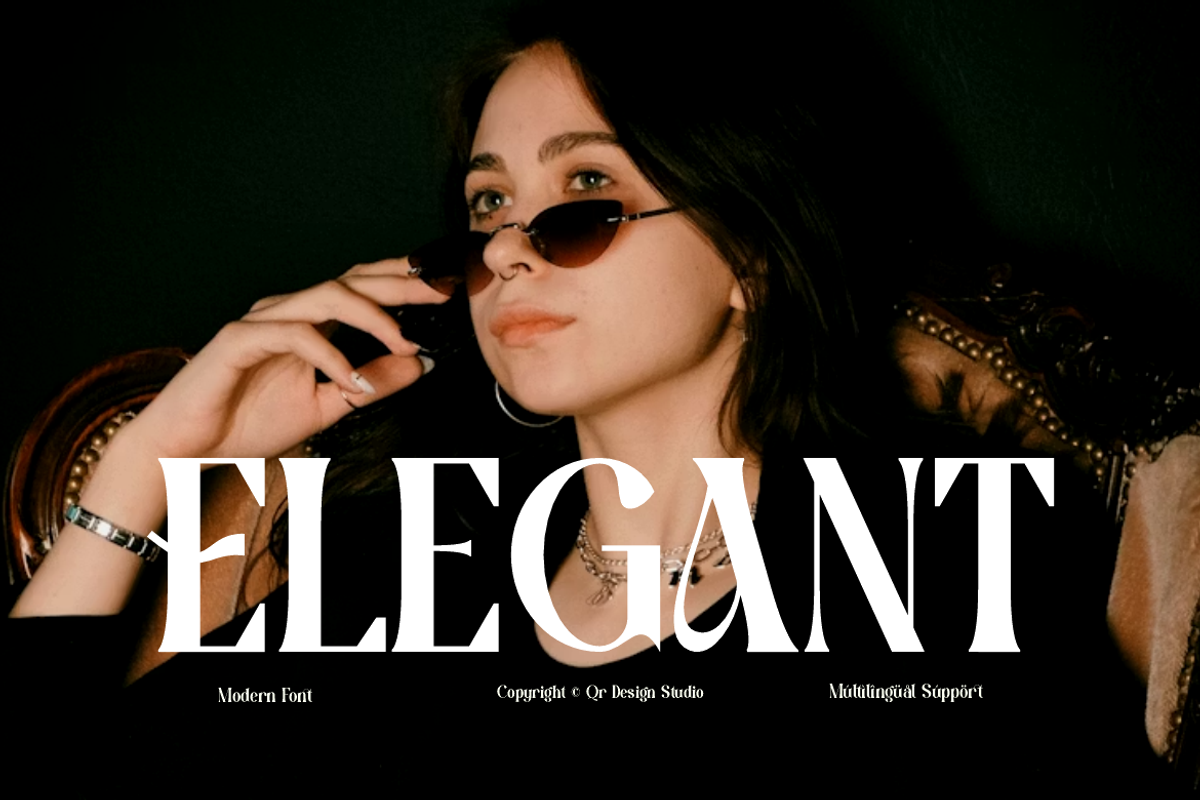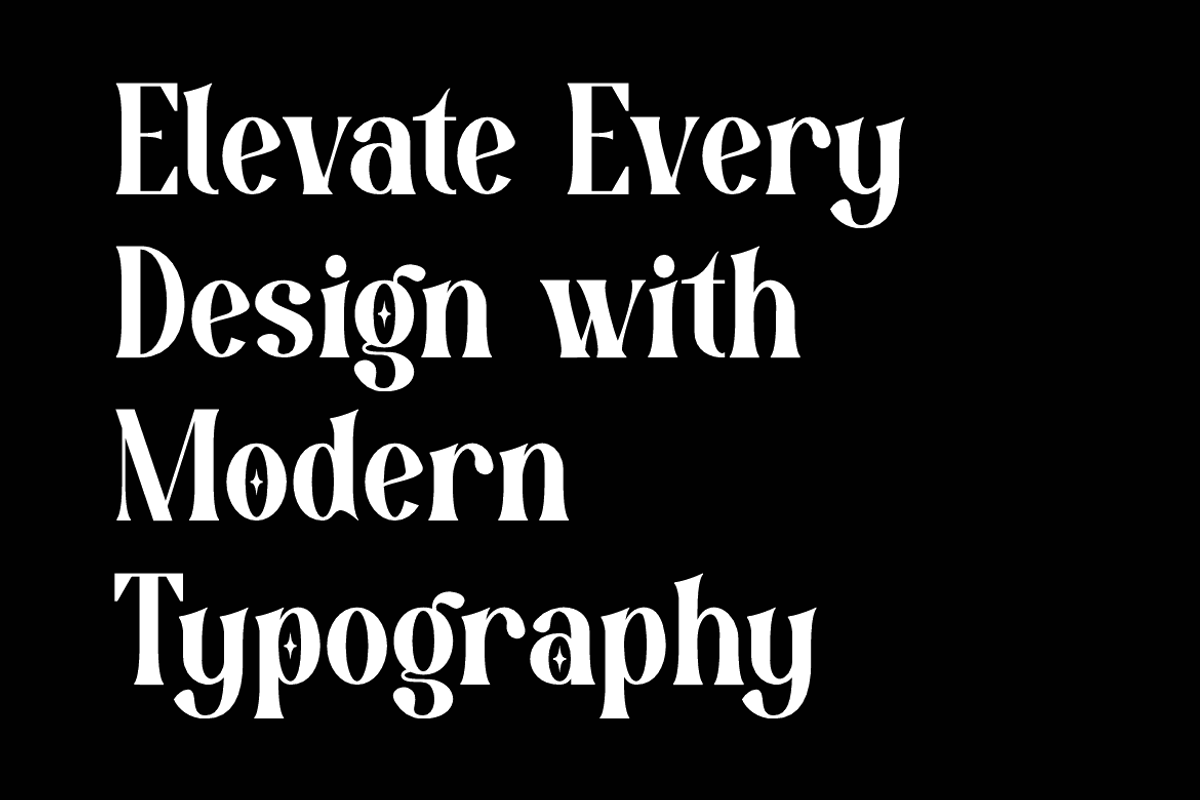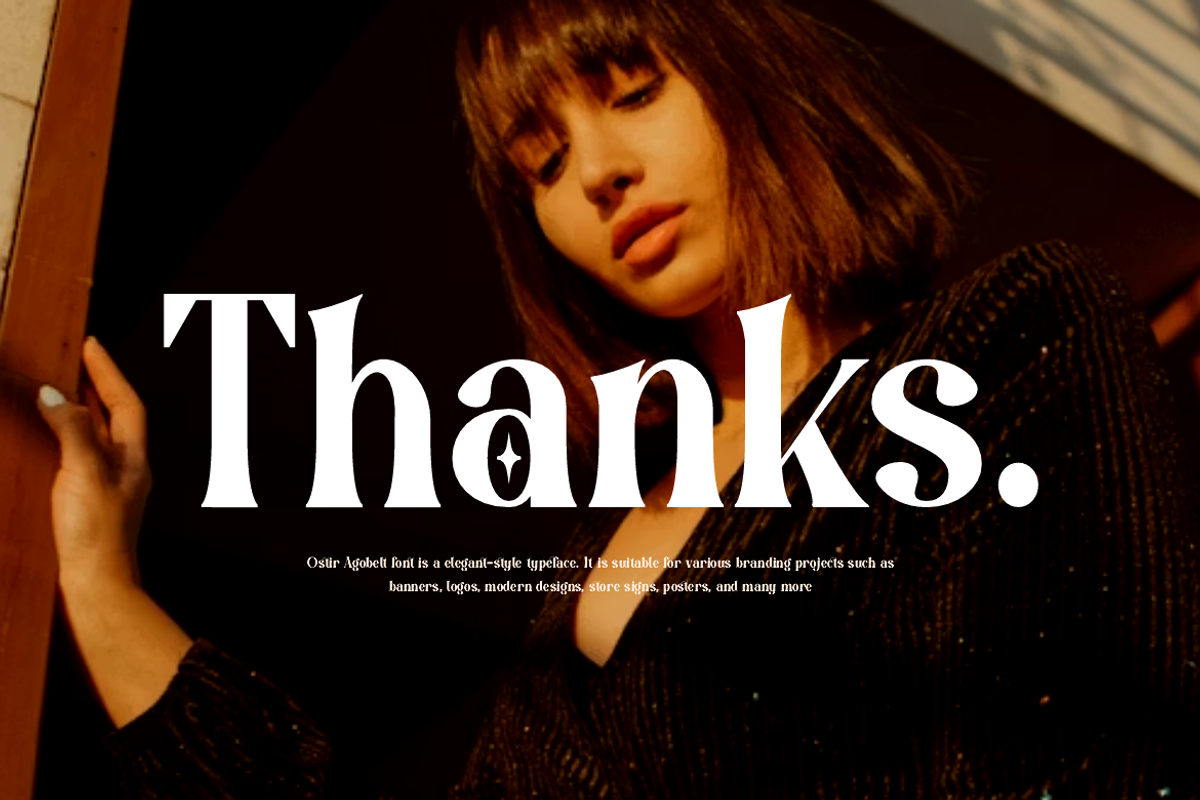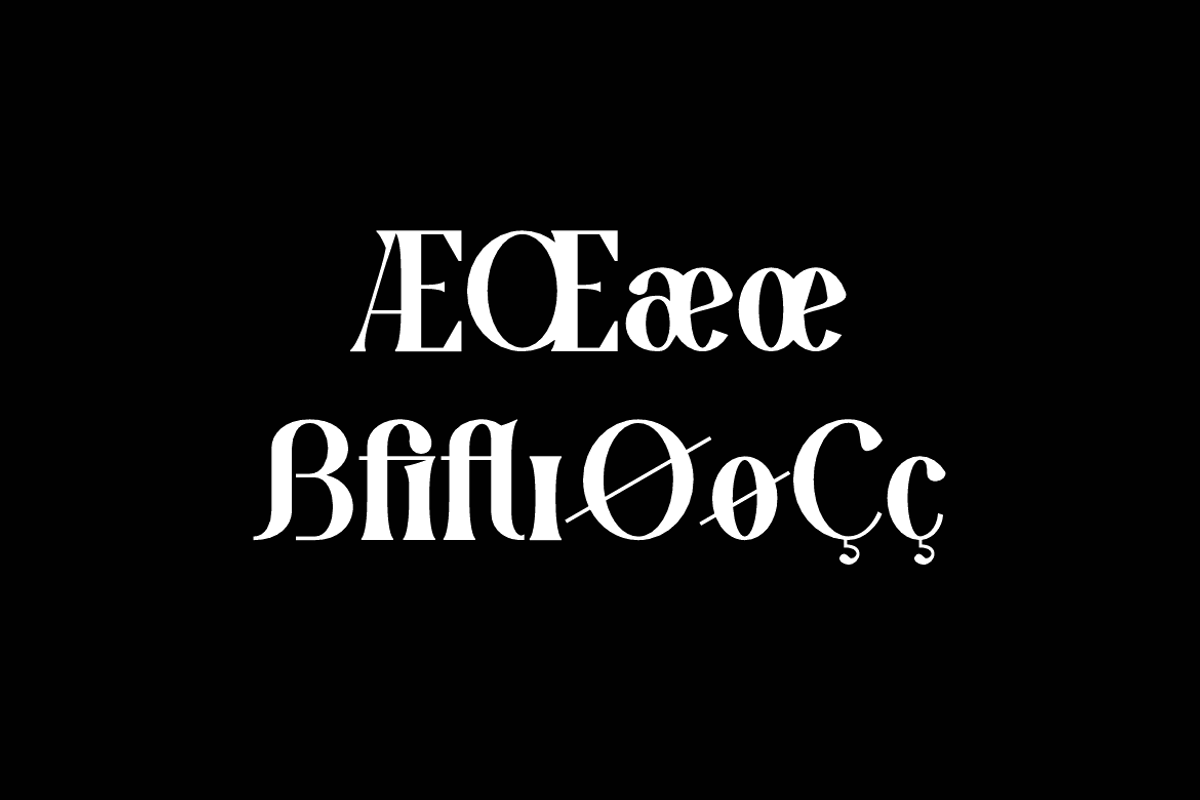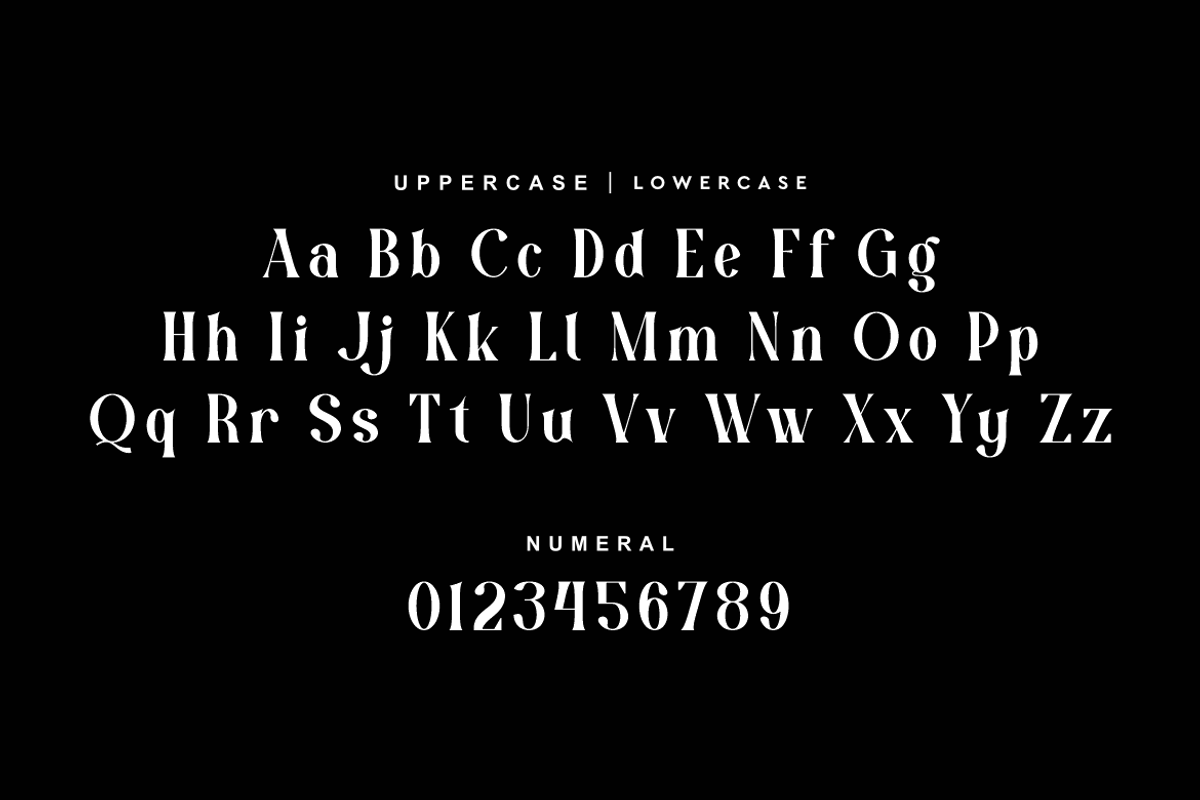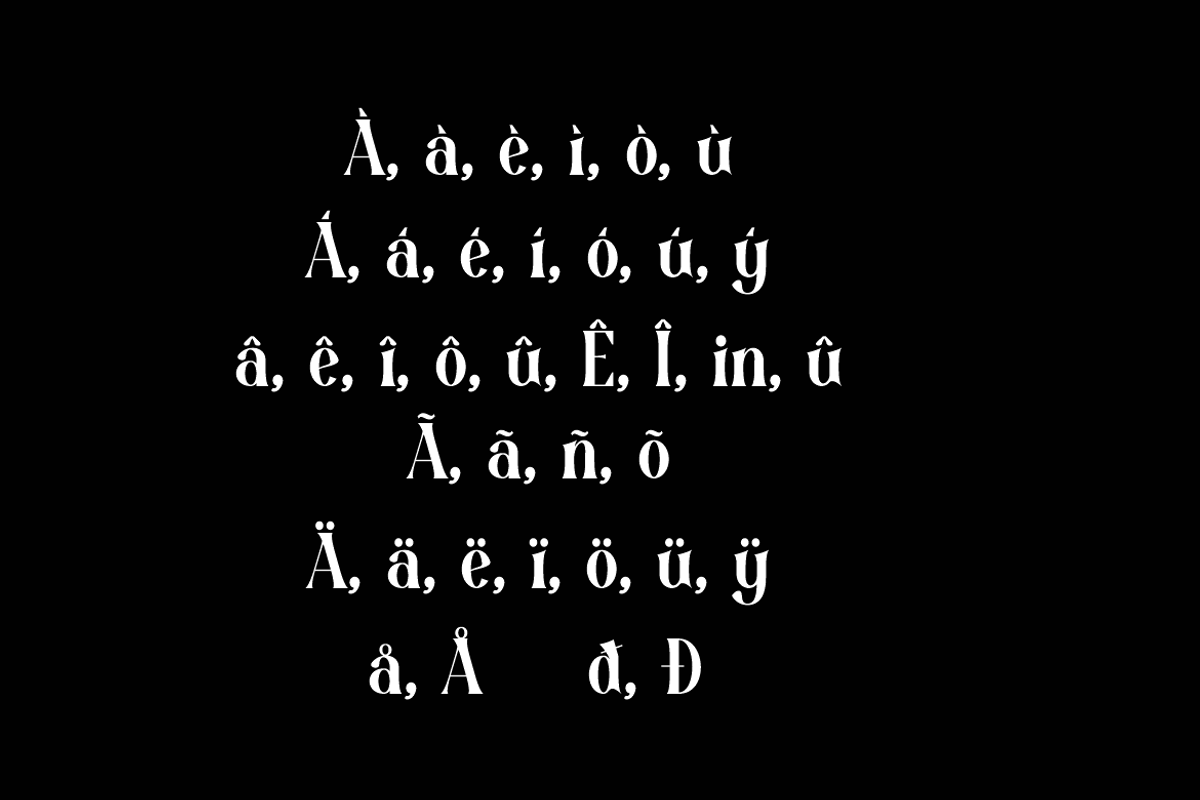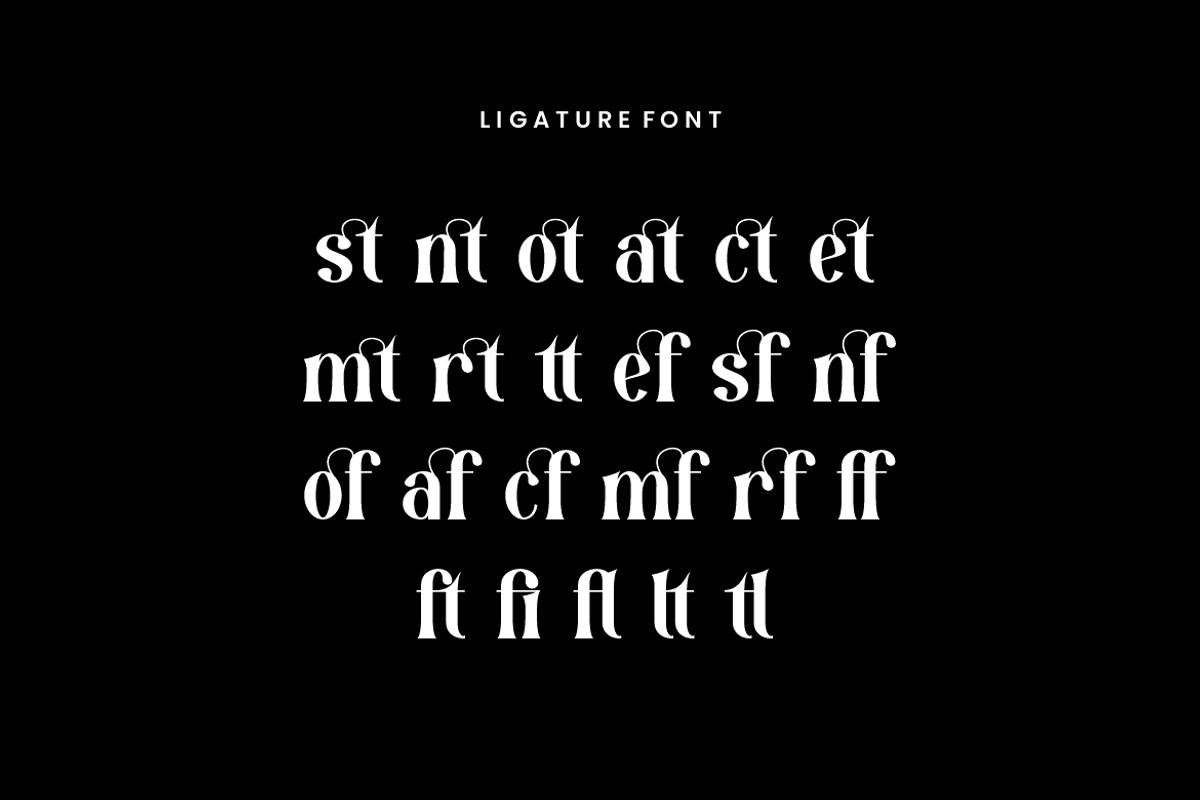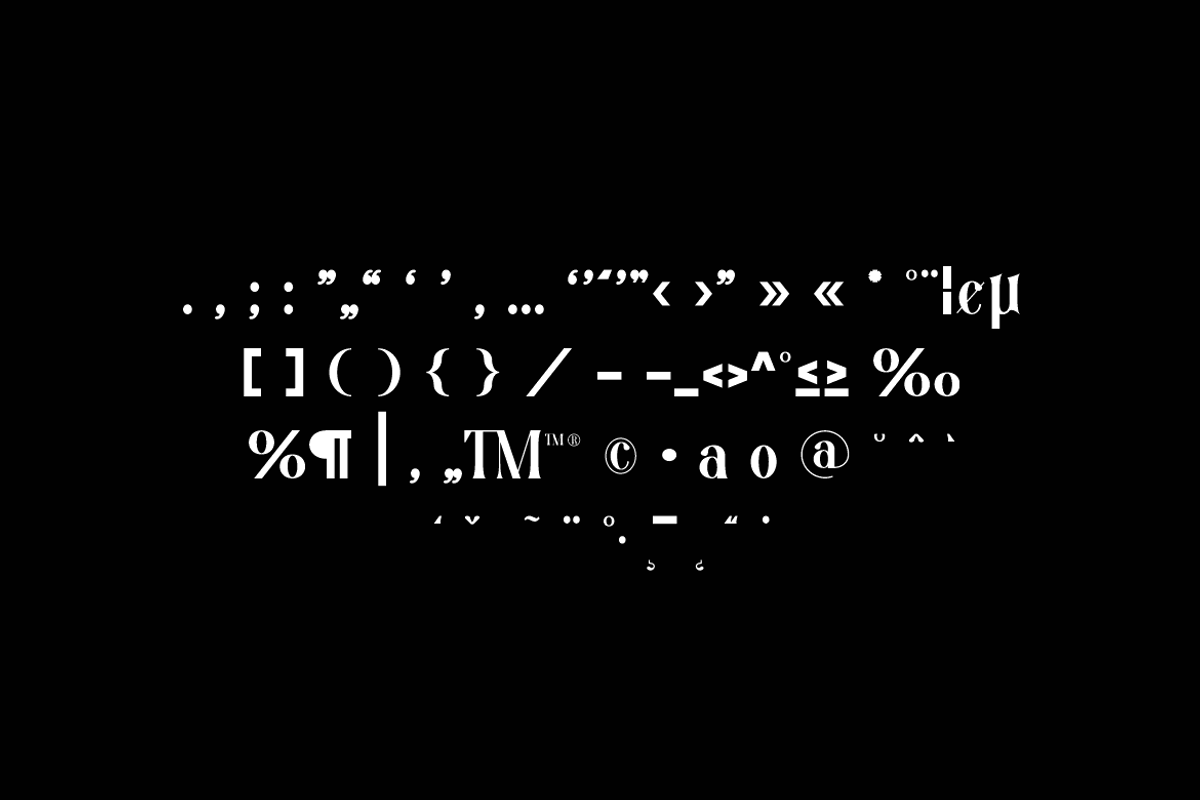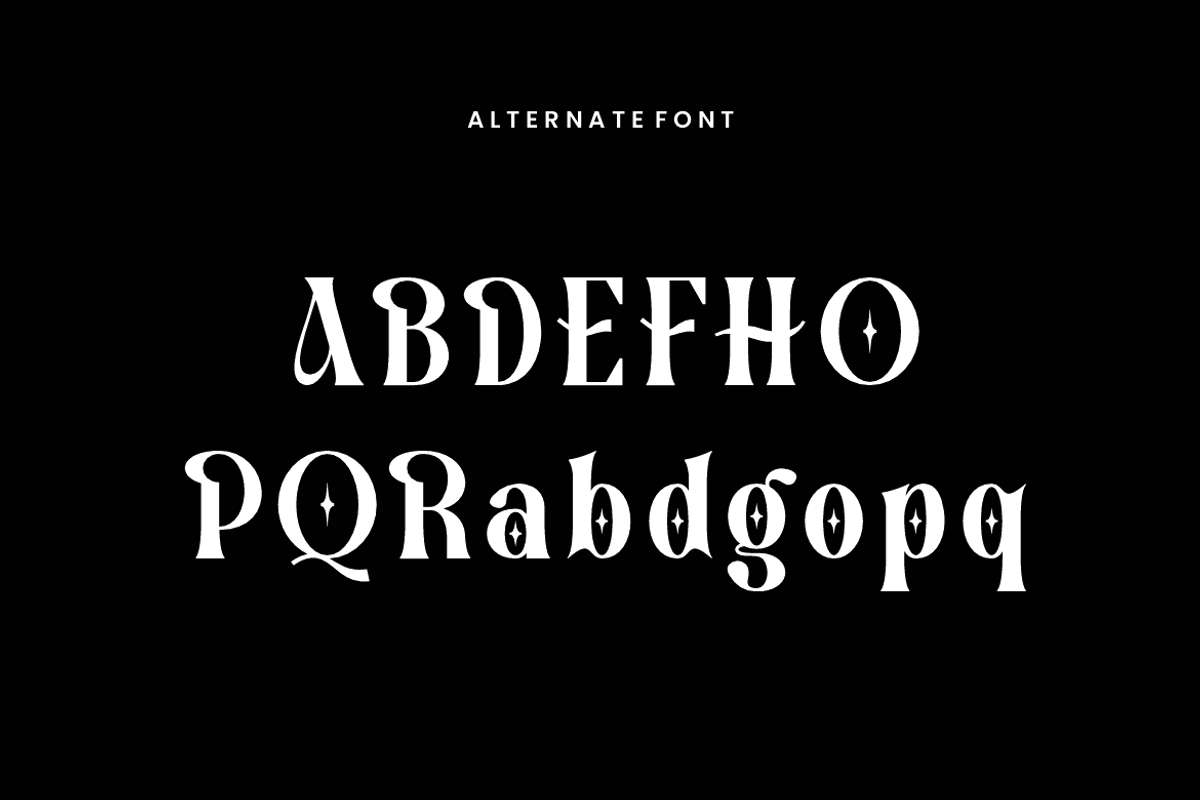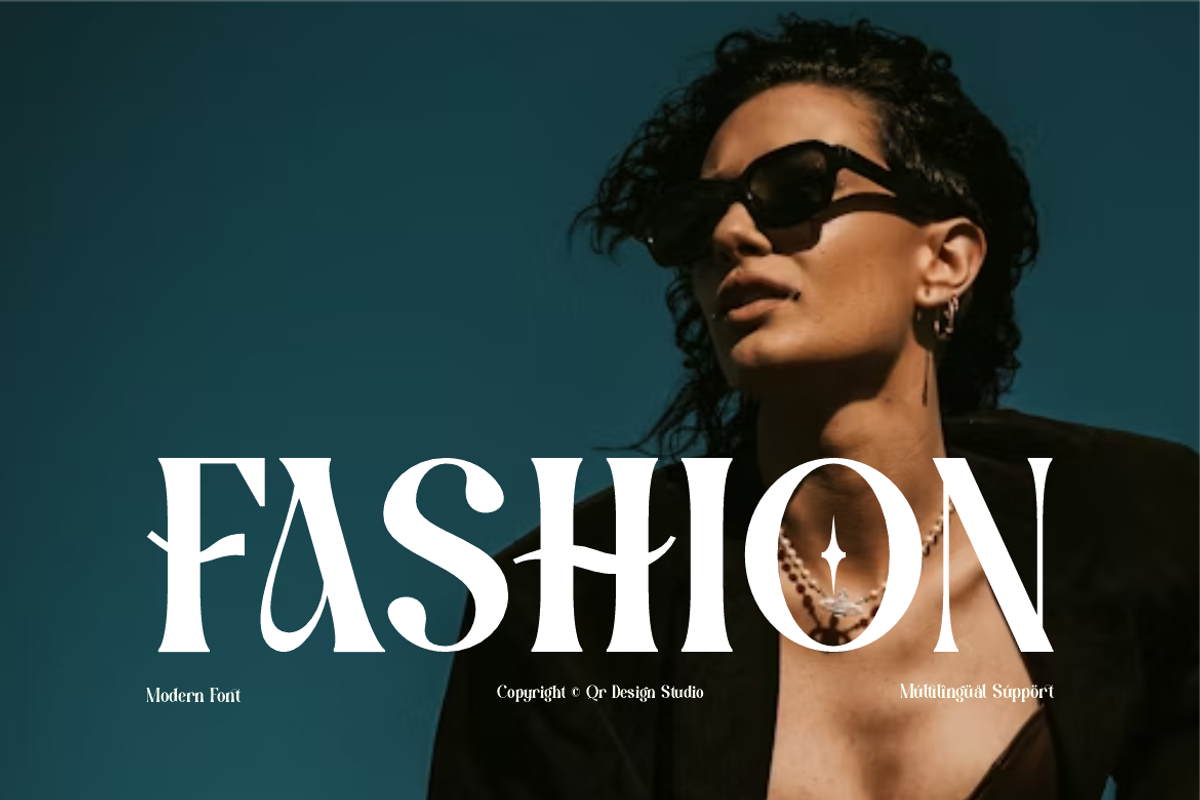
Ostir Agobelt Feminine Elegant Font
Ostir Agobelt Font is a serif and authentic display typeface.
It’s perfect for various branding projects such as logos, modern designs,
and more. This font stands out beautifully in a wide range of contexts.